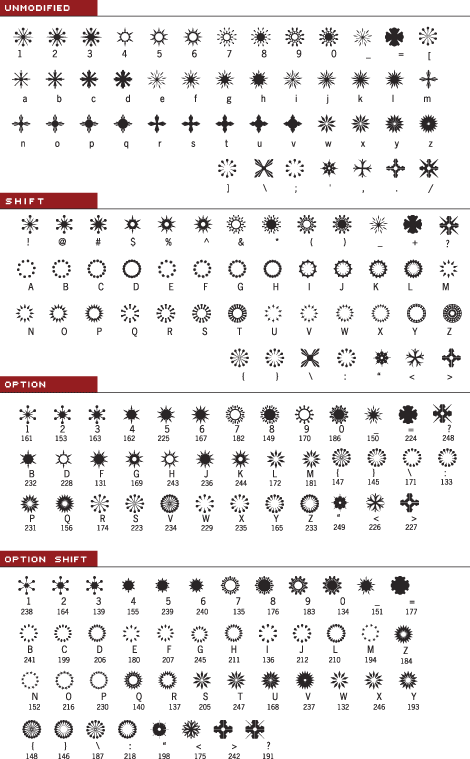
Altemus Bursts 3 (Altemus Creative)
A DECADE OF RESEARCH
The Altemus Collection, from New York designer Robert Altemus, is not culled from other typographic sources and the designs are not merely auto-traced. We have worked for over ten years drawing and compiling the entire collection, becoming design scavengers who saw potential elements everywhere.
The character designs are all based on observation and exploration, and in most cases on quick thumbnails that capture the essence of the found designs. The rough sketches are then explored and developed. As the forms are drawn in vector format we try various weight and stylistic variations that usually yield a series of new designs.
VARIED SOURCES
The individual designs are derived from our vast graphic history, inspired by items as diverse as medieval heraldic emblems and 18th-century colonial Portuguese decorative elements. Many historical design movements became the basis for a variety of character designs; Babylonian symbols, Brazilian art deco architecture, Spanish art nouveau, Punk band posters, old printing cuts, American quilt designs and even 1950s American fabric designs.
Many other designs were included because of their traditional usage in printed materials. We scoured flea markets, observing the decorative elements used on old packaging and in period book and signage designs.